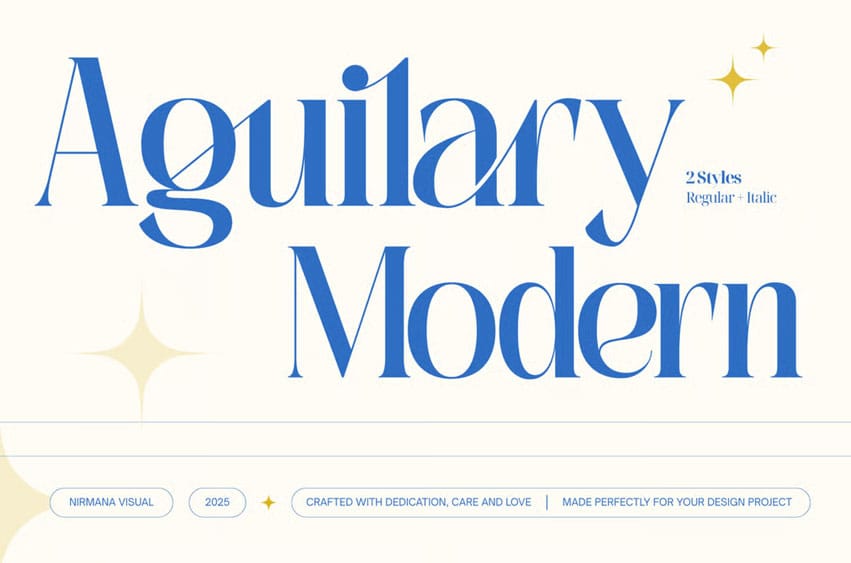
Aguilary Modern Font offers beautiful typographic harmony for a diversity of design projects, including logos & branding, social media posts, advertisements & product designs.
Aguilary Modern Font Preview